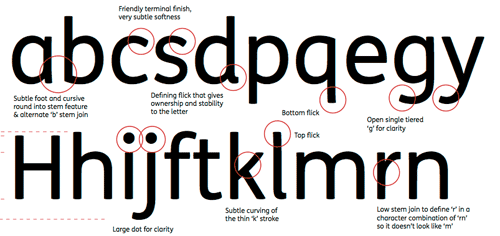
FS Mencap, A new standard in legibility
Groundbreaking new font is a first for people with a learning
disability.
The world's first font for people with a learning disability has been
commissioned by Mencap. The new font is the first to be designed in
consultation with a group of people who have a learning disability.
Mencap has teamed up with leading font designer, Jason Smith, to create
the FS Mencap font, which is easier to read but still stylish to look
at. The charity has been looking at ways to open up more opportunities
for people with a learning disability as part of its repositioning and
an accessible font was seen as an important move forward. FS Mencap will
be available for public use, rivaling Arial and Helvetica as the
standard accessible font. It is hoped this will make reading easier for
thousands.
Over a three month period, the learning disability group looked at
various styles of sans serif and handwritten fonts. They considered how
letter spacing, width, shape and style all affected readability and
developed a very individual font with 260 characters. During the
process, larger and more rounded letters were found to be more
accessible. The letter 'v' was given a curved arm to differentiate it
from a 'w' and the letter 'r' opened up to make it more legible.
Mencap's campaigns and information assistant, Ismail Kaji, who was part
of the learning disability group testing the font, said:
"This new font is really exciting for Mencap and for people with a
learning disability as there are so many things that you can't do in
life if you can't read. It was fascinating to see the different styles
of fonts and the way they look on the page. We took a long time deciding
which were the easiest to read and the clearest to see. The results are
great and will have an impact on Mencap's future work."
The ability to read is one that many of us take for granted but people
who find it difficult to read can find it restricts their access to
education, employment and even leisure. The font is available for people
to use as an everyday tool to assist in Mencap's vision of a world where
people with a learning disability are valued equally, listened to and
included.
wenn ich mal seine FS Albert danebenstelle fällt es mir schwer zu glauben dass gerade diese Variante (und nur diese…) der Durchbruch für Menschen mit Lernschwäche sein soll. "A new standard…" ist das für mich nicht.
Wenn sie rausgefunden haben und belegen können dass das einstöckige "besser" ist... ok. Nur find ich da (noch?) nichts Aussagekräftiges. Zu so einer Schriftveröffentlichung gehört eigentlich eine wissenschaftliche Arbeit dazugereicht, keine Marketing-Superlative.
Für mich stellt sich da die Frage, inwieweit eloquente Schriftdesigner unbewusst einer Gruppe von lernschwachen (nicht: legasthenischen) Probanden ihre Zielvorgaben suggerieren. Begriffe wie "ugly" an Strichenden und das eingeschossige "a" machen mich nachdenklich. Das eingeschossige a ist gern Bestandteil einer Erstlernerschrift (wegen der Nähe zum "Selbstgeschriebenen"), das sieht für mich so aus, als hätte da jemand mit dem Hintergrundwissen um Sassoon und Co. schon ein Ergebnis im Kopf gehabt, und nur noch eine Zielgruppe zur Bestätigung gesucht. Ob (erwachsene) Legastheniker mit einem zweigeschossigen, in seiner Form schwer verwechselbaren "a" nicht besser bedient gewesen wären?
Irgendwie ist das dann so neu auch nicht:
das sieht für mich so aus, als hätte da jemand mit dem Hintergrundwissen um Sassoon und Co. schon ein Ergebnis im Kopf gehabt, und nur noch eine Zielgruppe zur Bestätigung gesucht.
Bin da auch skeptisch. Zwar sind die Type Designer die ausgemachten Experten für die Gestaltung von Buchstaben, aber wann immer es um die angrenzenden Bereiche der Psychologie und Wahrnehmung der Schrift geht, tappen doch auch alle Schriftexperten verzweifelt im Dunkeln. Fällt mir zumindest immer wieder bei sämtlichen so genannten Verkehrs- und Leitsystemschriften, sowie allen Kinder- oder Legasthenikerschriften auf.
Und umgekehrt kommen die waschechten Wissenschaftler natürlich auch immer zu den seltsamsten Erkenntnissen, wenn sie sich mit Schrift und Typografie auseinandersetzen. Schade, dass man diese beiden Welten offenbar schwer vereinen kann.
Wohl weil sich die Type Designer zu sehr von der eigenen Wahrnehmung, Tradition und Ästhetik leiten lassen, und sich andererseits die "Forscher" in der Regel nicht mit den typografischen Möglichkeiten und Werkzeugen vertraut machen.